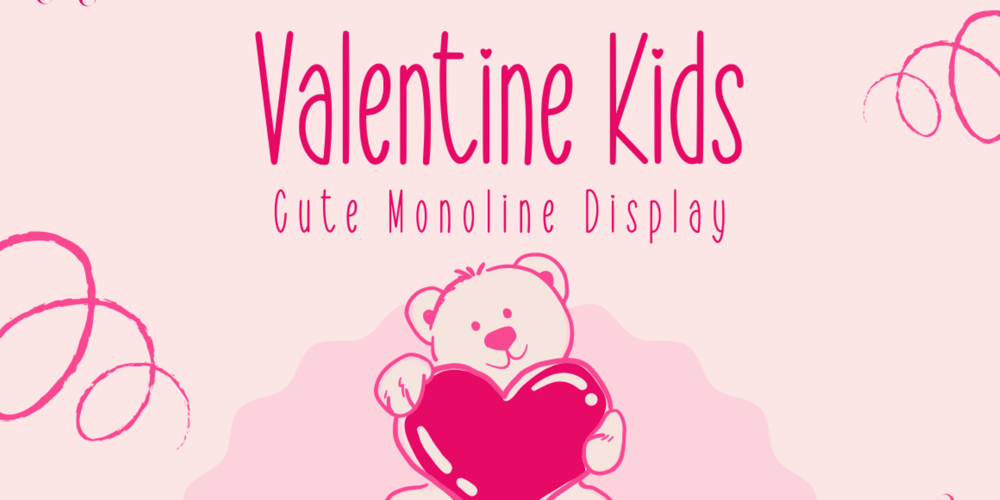
Valentine Kids Font Family was designed by Muhammad Yafinuha and published by Letterayu Studio. Valentine Kids contains 1 styles and family package options. Valentine Kids is a sweet, tall and thin lettered sans serif font. It works great for children or school projects, or pretty much anything that requires a chic, delicate touch.